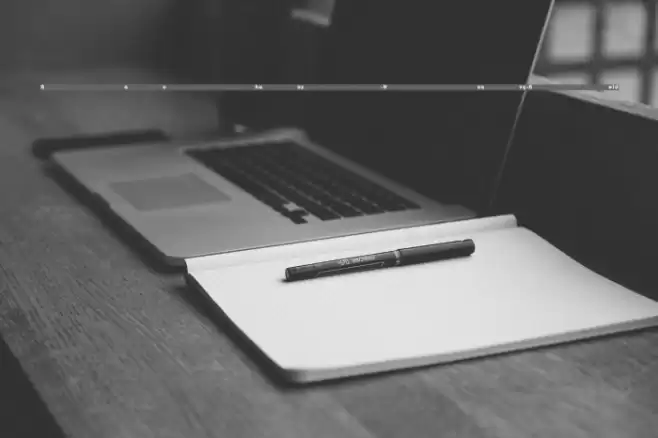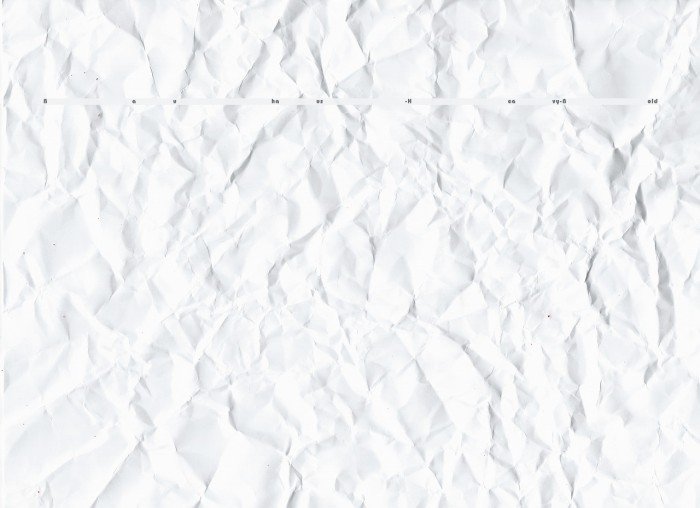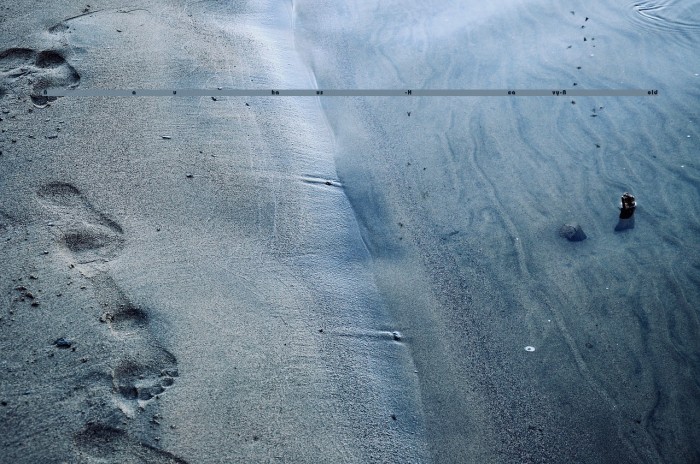
Bauhaus-Heavy-Bold Font
Bauhaus-Heavy-Bold Description
This font exhibits a bold and geometric style, characterized by its heavy weight and rounded shapes. The letters are constructed with a uniform thickness, giving it a strong and impactful presence. The design is reminiscent of the Bauhaus movement, emphasizing simplicity and functionality. The characters are evenly spaced, providing a balanced and cohesive look. The font includes a full set of uppercase and lowercase letters, numbers, and a variety of special characters, making it versatile for different design needs.
A bold, geometric font with a strong, rounded design from Uncategorized fonts.
- Proposed Projects: Ideal for modern branding, posters, headlines, and any design requiring a bold statement.